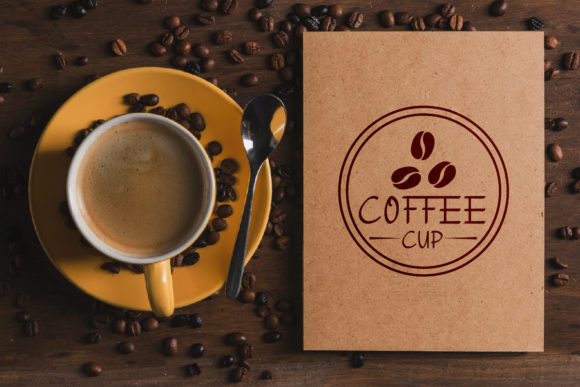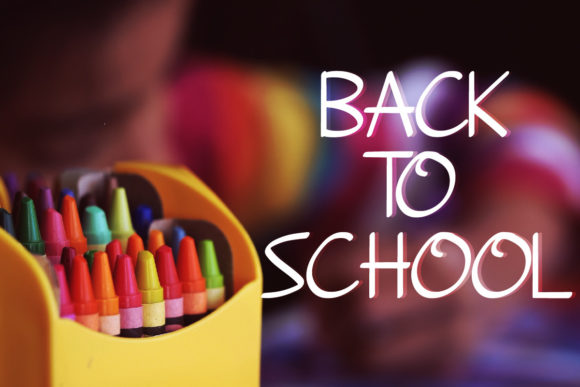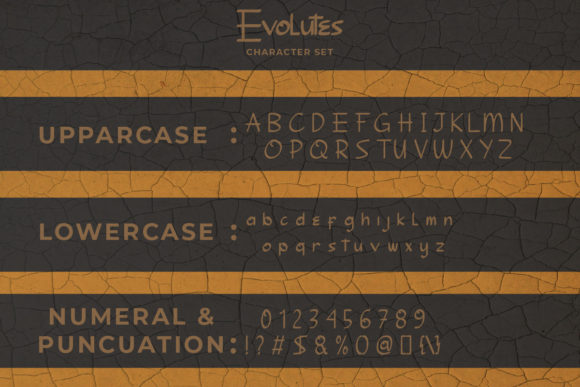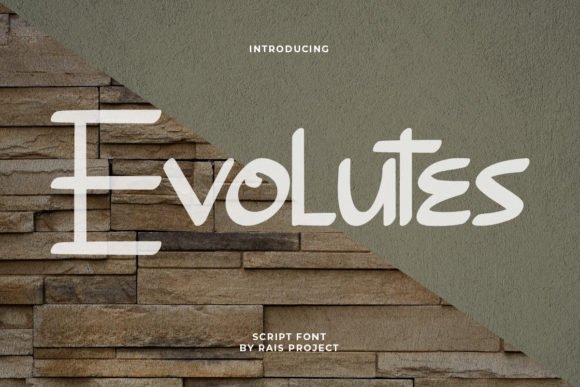
Introduction to Evolutes Font
Evolutes is a bouncy and quirky display font.
It will add a fresh and contemporary touch to your designs Add this unique display font to each of your creative ideas and notice how it makes them stand out.
Evolutes Font offers exceptional quality and versatility, making it a valuable addition to your design toolkit. Whether you’re creating for personal projects or commercial use, Evolutes Font delivers professional results.